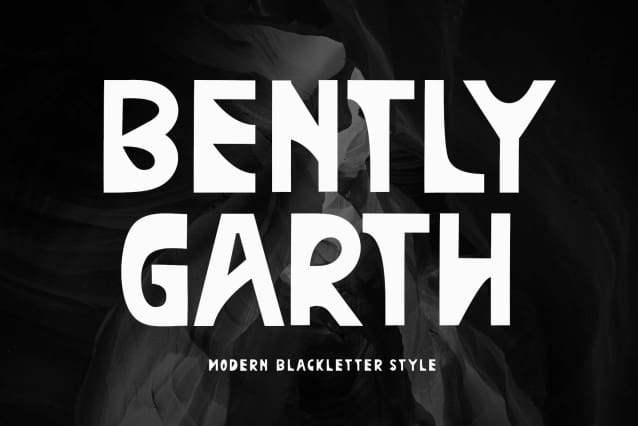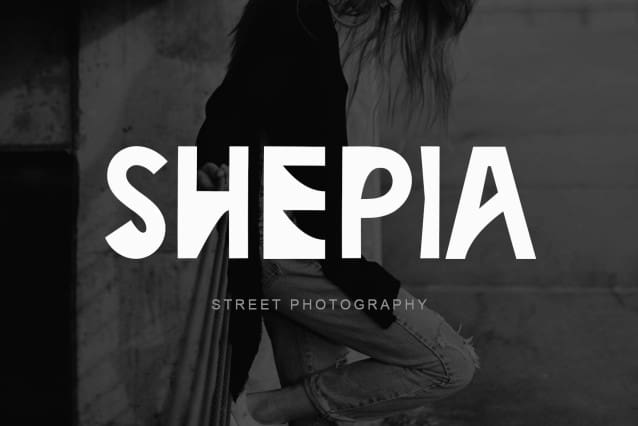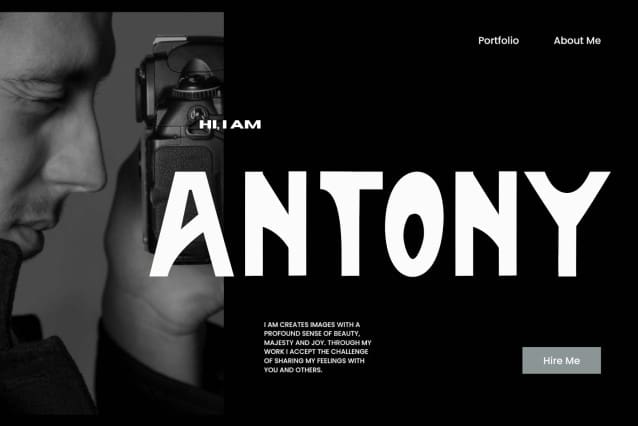
Bently Garth Font
Bently Garth Font is an elegant and professional blackletter font. This font is equipped with uppercase, lowercase, numerals, punctuation, ligatures, and multilingual support. Very suitable for business branding, logos, stickers, posters, banners, branding, SVG, KDP, Procreate, sublimation, and others.